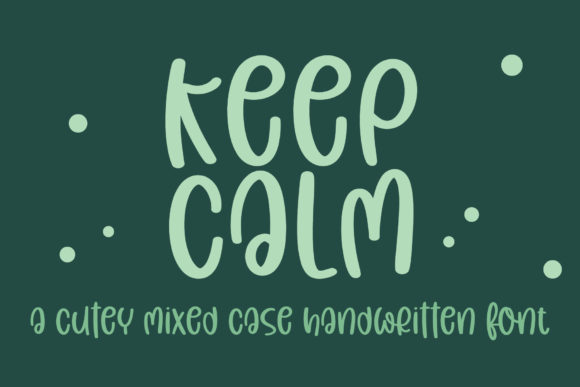
Introducing Keep Calm Font, a Whimsical Handwritten Masterpiece
In a world of digital monotony, let your words dance with the unique charm of Keep Calm Font. This enchanting script font, meticulously crafted by BitongType, unveils a world of creativity waiting to be explored.
Embark on a typographic journey where elegance meets playfulness. With its relaxed feel and mixed cased characters, Keep Calm Font adds a cheerful touch to your designs, making them burst with personality.
Picture your posters adorned with the whimsical strokes of Keep Calm, conveying messages that resonate with warmth and joy. Let your logos radiate a touch of uniqueness, standing out from the crowd with their handwritten charm. Transform your business presentations into engaging stories, capturing the attention of your audience with every slide. And when you share your thoughts on social media, let Keep Calm Font dance across your posts, captivating your followers with its undeniable charm.
The magic of Keep Calm Font extends beyond its aesthetic allure. Its PUA encoding empowers you with effortless access to a treasure trove of glyphs and swashes. Unleash your creativity and explore the endless possibilities, crafting designs that leave a lasting impression.
With Keep Calm Font as your creative companion, you hold the key to unlocking a world of captivating designs. So, embrace the whimsical spirit of Keep Calm and let your imagination soar!